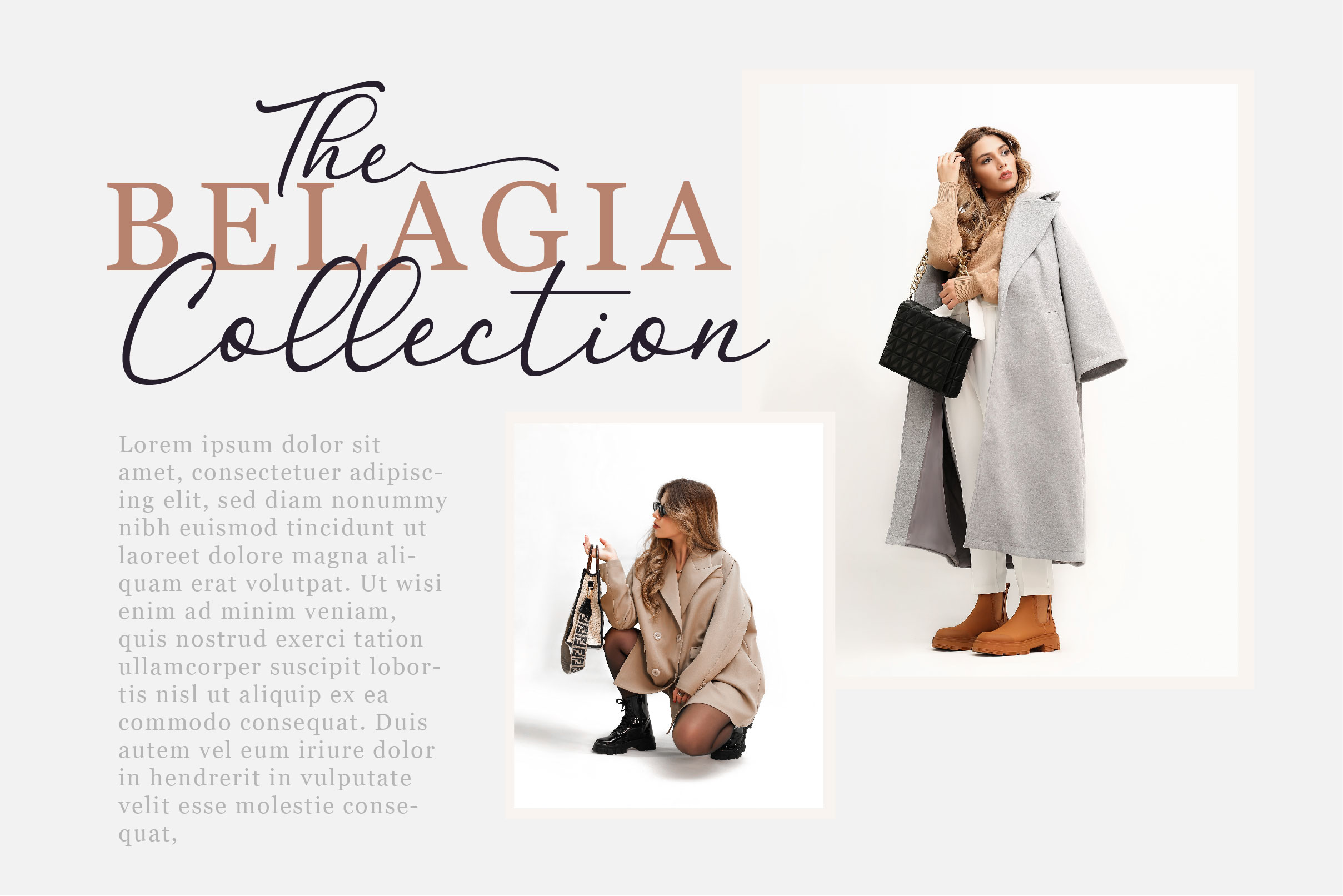
Belagia Font
Belagia Script Font is a luxury script typeface with a touch of elegant handwriting. Good for your logo watermarks, brand logos, weddings, magazines, packaging, signatures and much more. Jasmine can be customized to your needs.
– Uppercase, Lowercase, Numeral & Punctuation
– Alternate Letters, Ligature & Swash/Tail